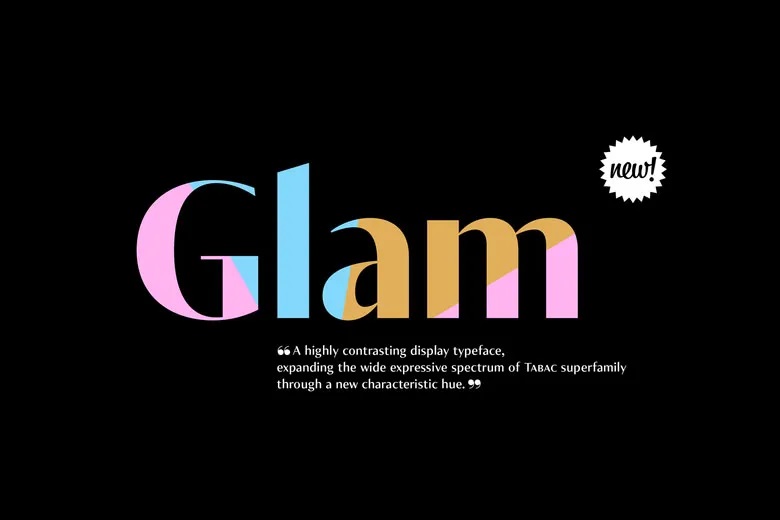
Tabac Glam Font Family
Tabac Glam Font
Tabac Glam is a contemporary grotesque of sans-serif typeface, perfect for body text in alphabetical newspapers and magazines. However, only in combination with other styles of the superfamily – Sans, Slab and Mono, you will be able to unleash the great potential of a wide range of options, and 112 styles of the family will undoubtedly meet all the needs of both stylish and technical typesetting.
Tabac Glam will best shine in high tides, on the outside covers of big thick volumes all coated with a glossy UV or on snow white sheen surface of display.